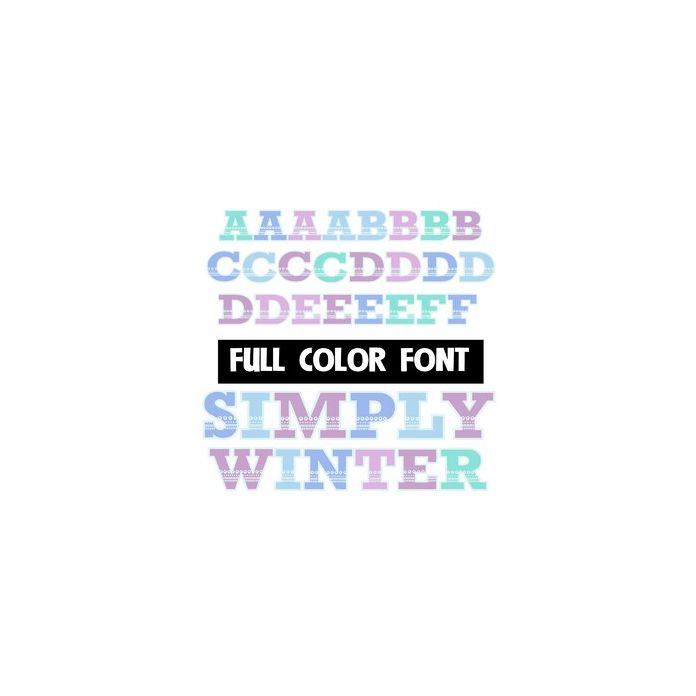
This pretty full-color font features slab serif lettering with simple, modern designs. There is a secondary alt case for both upper and lower that you can access through Silhouette's glyph map.